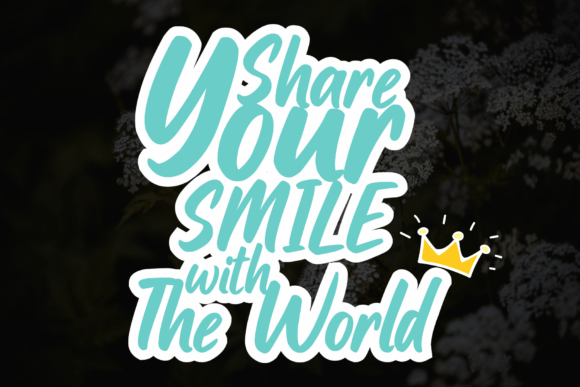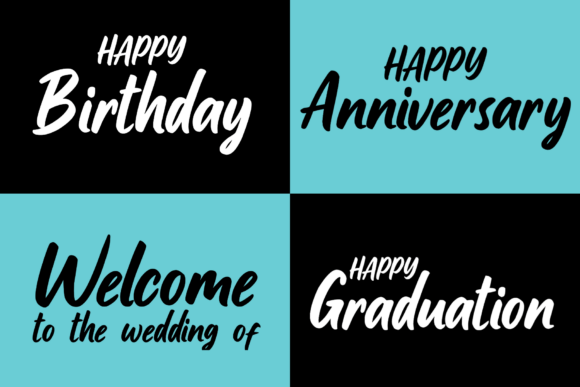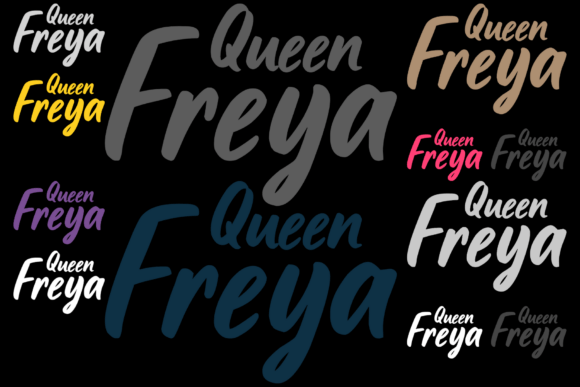
Introduction to Queen Freya Font
Meet Queen Freya, a delightful handwritten font, brimming with playfulness and allure.
Infusing personal flair into any creative endeavor, this incredibly adaptable typeface is ideal for a broad spectrum of applications – from crafts to computer graphics, book cover artistry to high-impact presentations, and uniquely customized greeting cards Queen Freya possesses a universal charm, integrating seamlessly into any design project you embark upon, making it your steadfast companion for all design adventures and festivities.
Queen Freya Font offers exceptional quality and versatility, making it a valuable addition to your design toolkit. Whether you’re creating for personal projects or commercial use, Queen Freya Font delivers professional results.